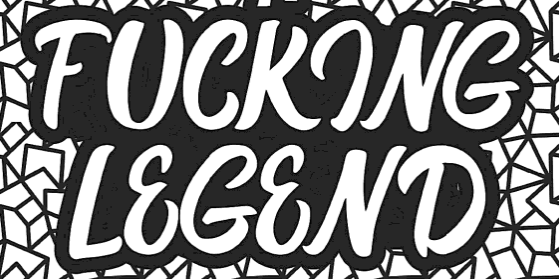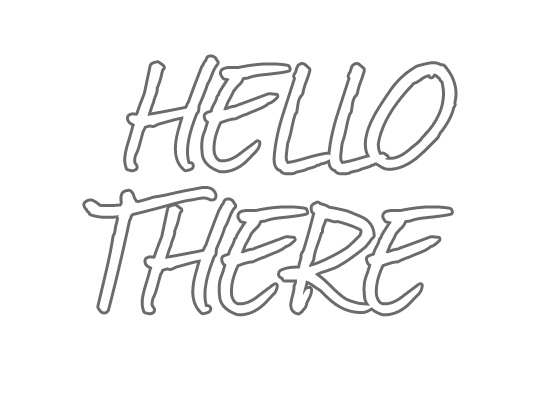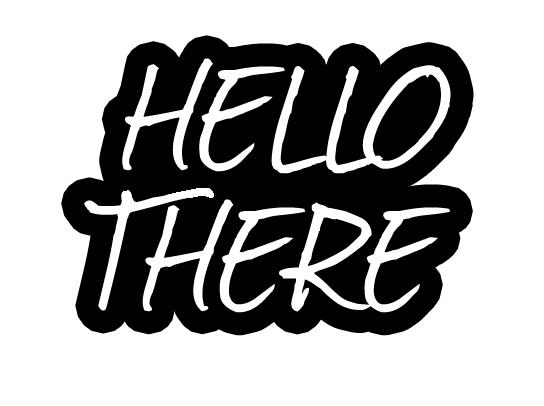
@RedKittieKat thanks for replying, but I see that there isn’t a thick border over the font. Could you help?
That would be added in the design treatment ![]()
I happened to have Photoshop open so this is very quick just to show adding a stroke to the font. You will of course fine tune the details.
Regular font with no stroke:
Font with thick stroke:
There are a few ways to do this across many different software programs. You will have to find what works with whatever you are using. ![]()